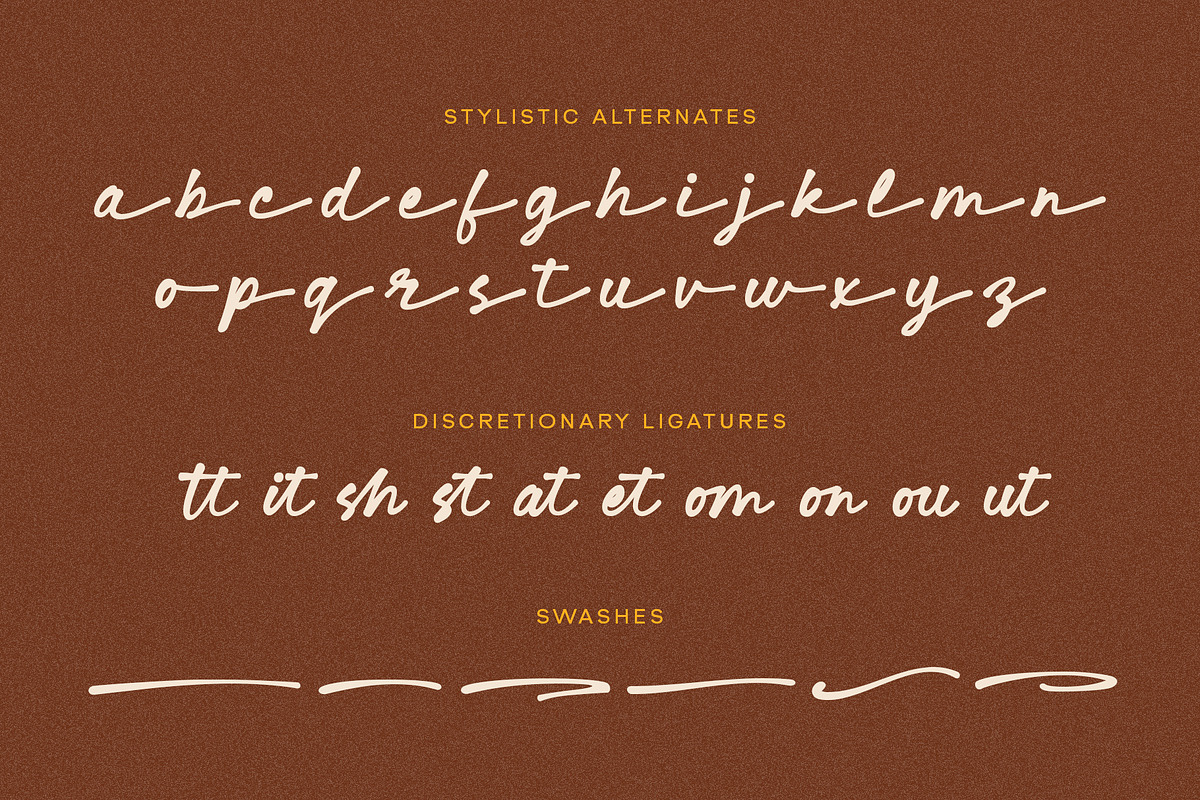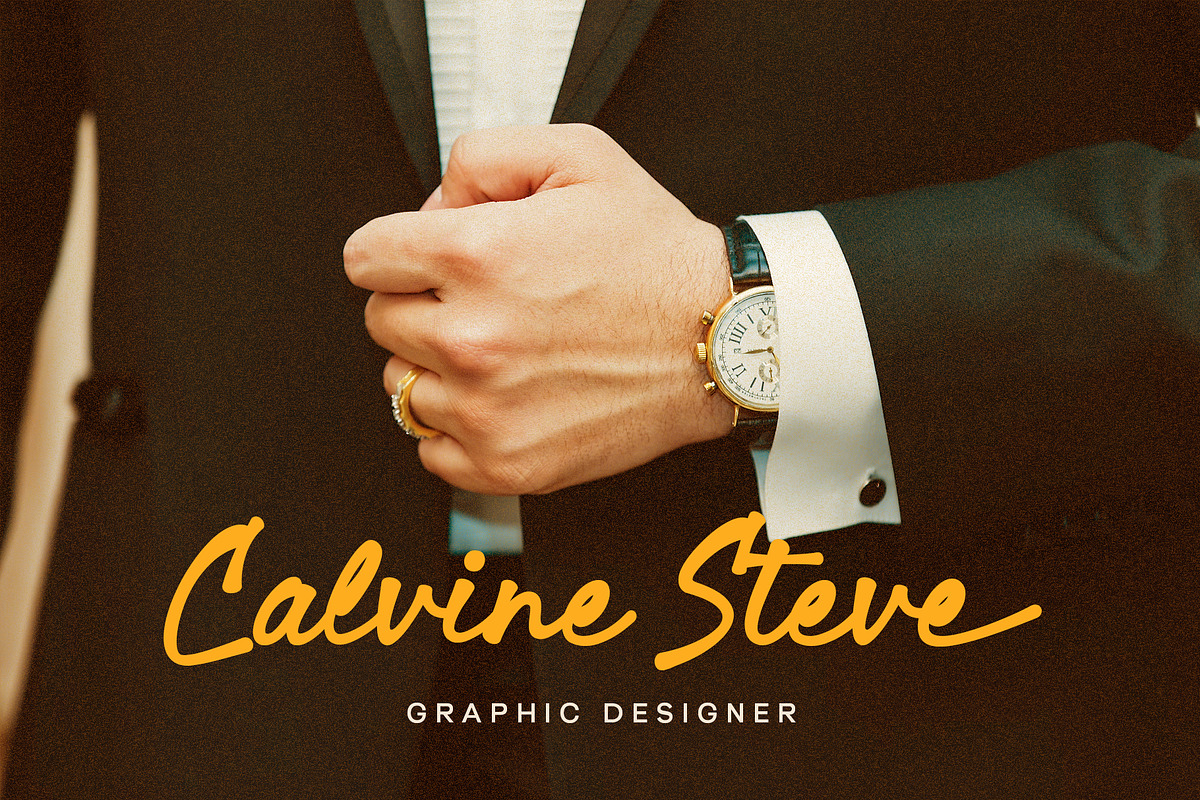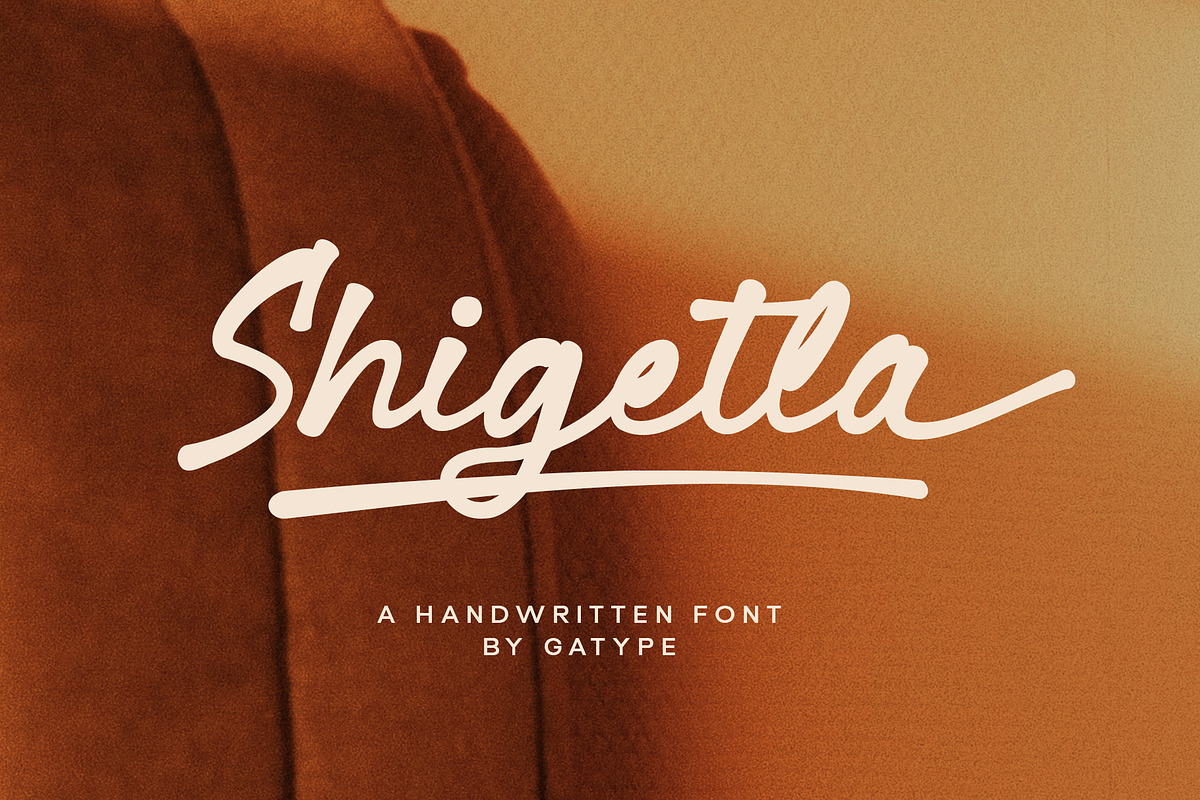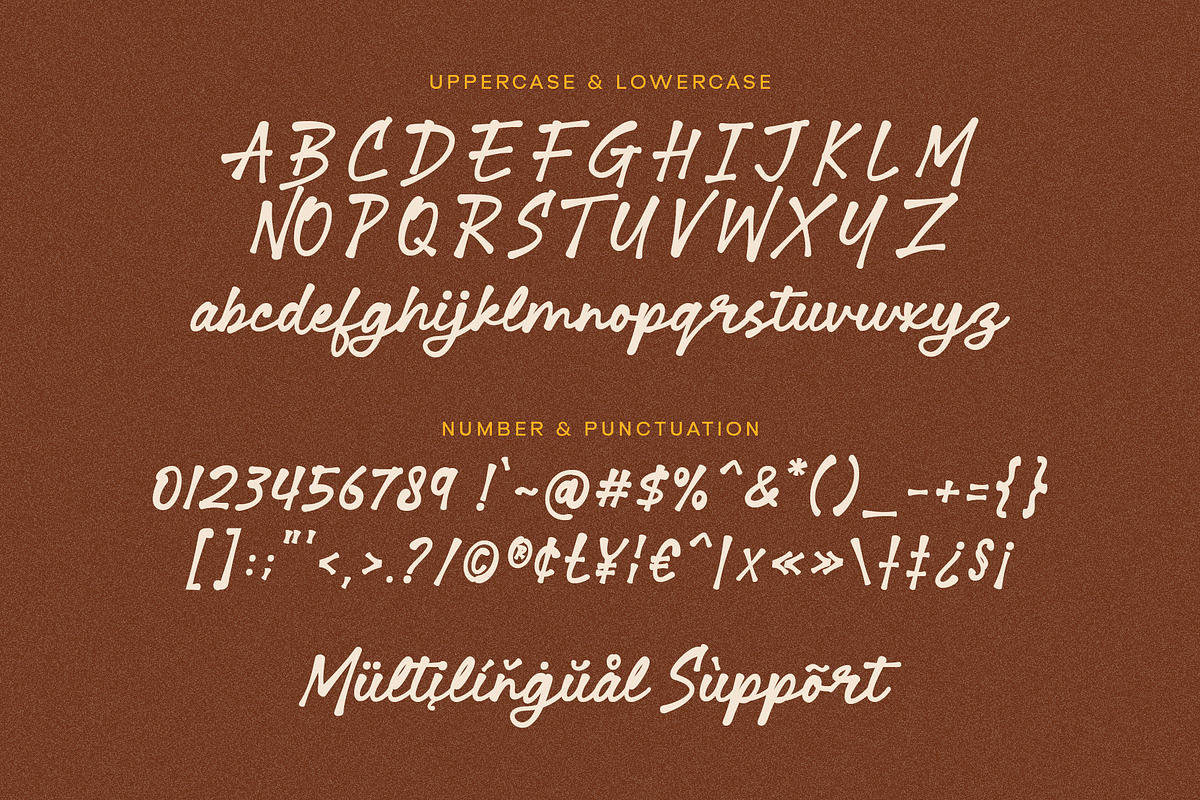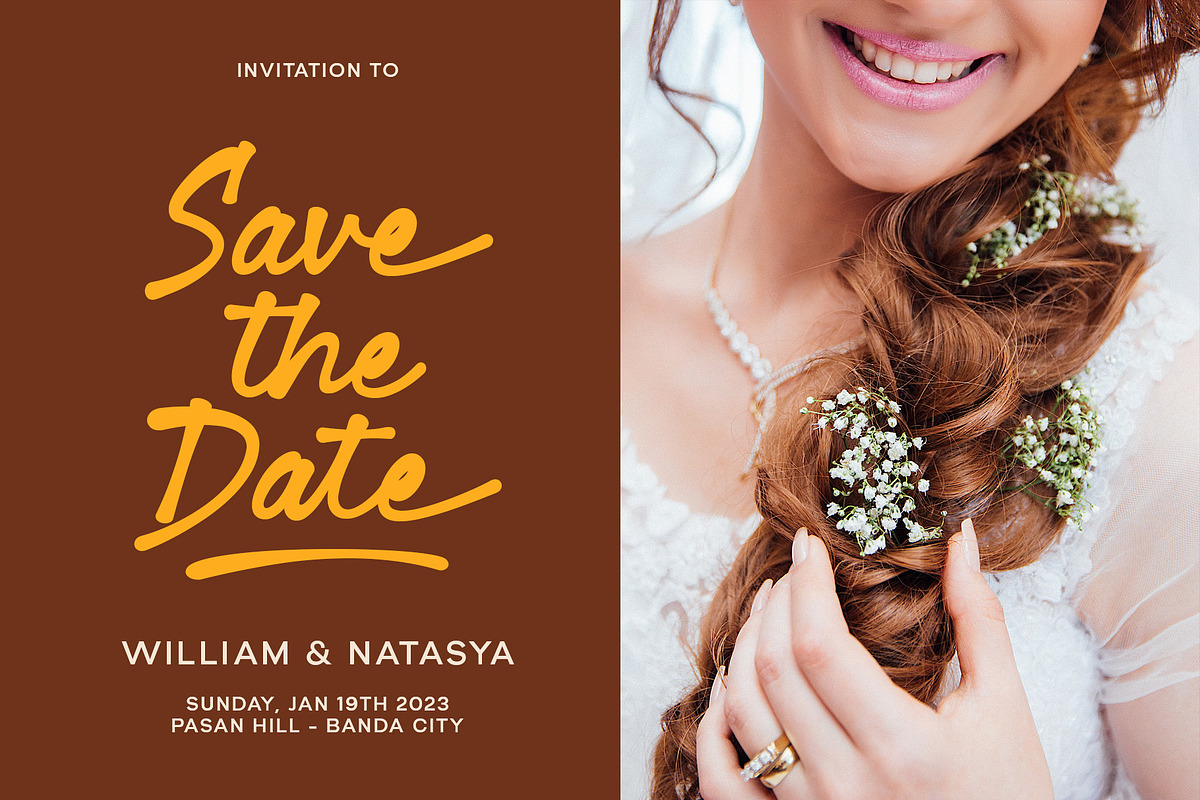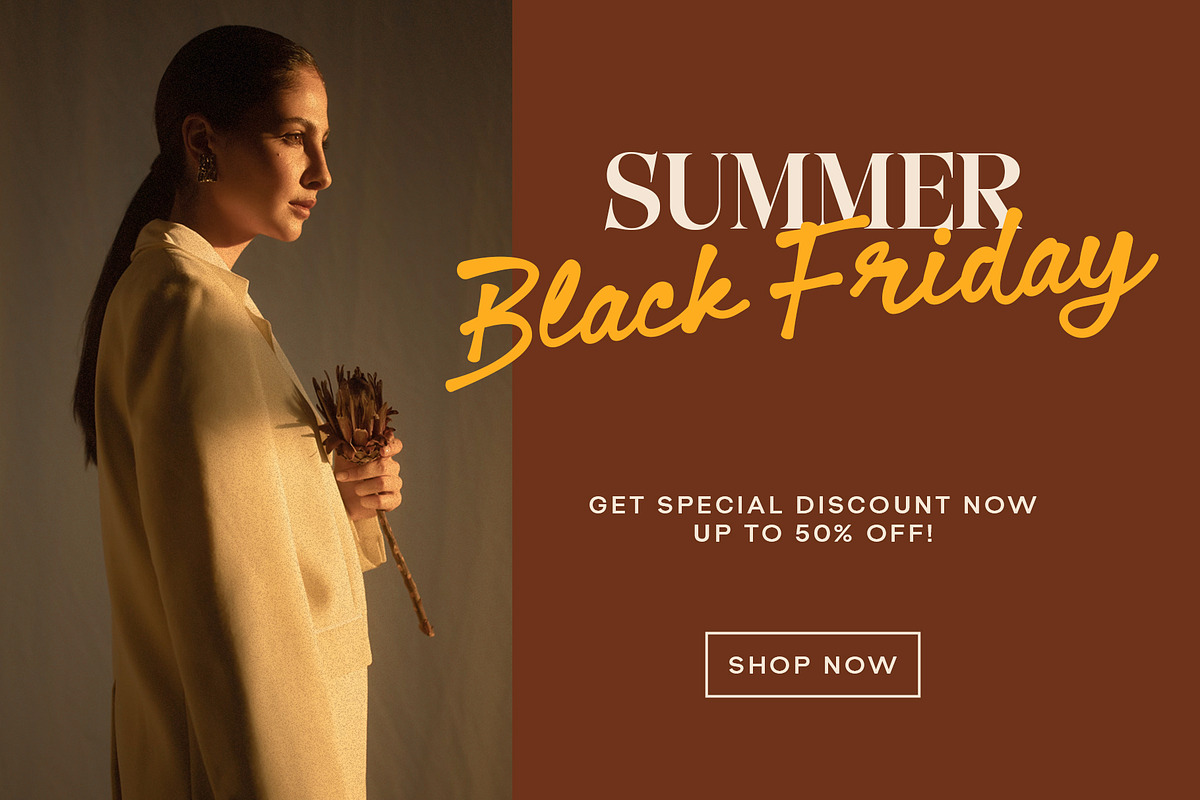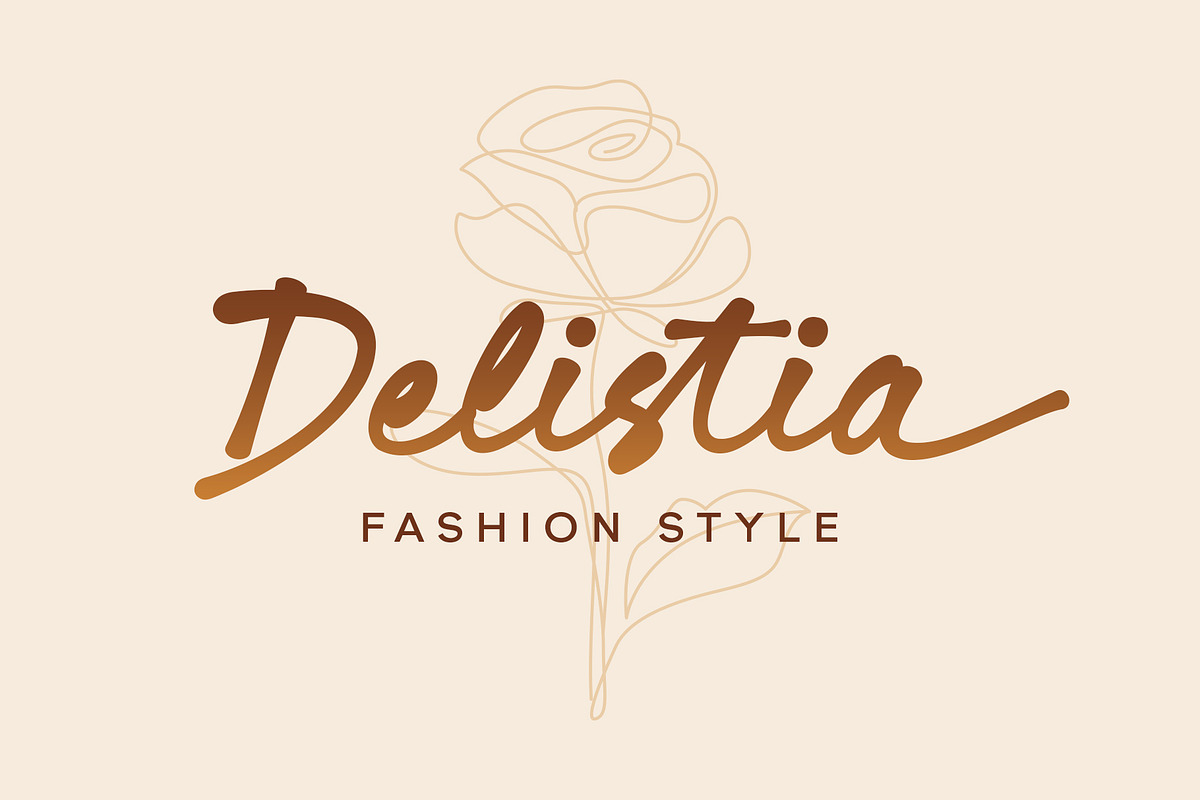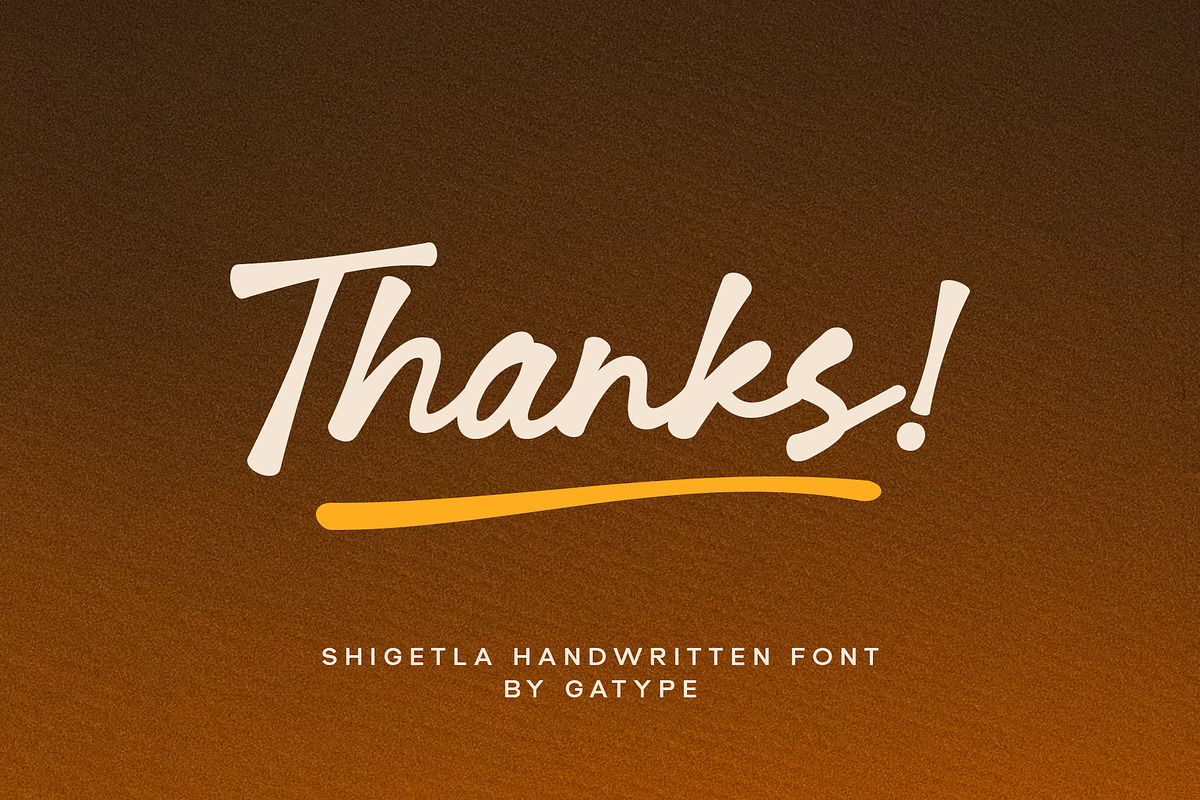
Shigetla
Shigetla comes with an extreme Brush cut, sharp corners and interactive straps. The affected characters are spread across three capital-specific sub-families, with different styles, and different personalities. Bold character separation and considered binding standards create a type that is sturdy, modern and attractive
Including a special Underline combination in its character.
Shigetla is a modern stylish brush font, each letter has been carefully crafted to make your text look unique.